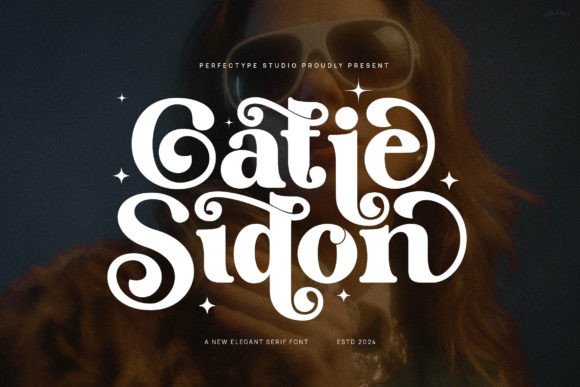
The Elegant Catie Sidon Font: A Designer’s New Best Friend
I’ll never forget the time I was working on a project for a high-end fashion brand, and I was struggling to find the perfect font to match their luxurious aesthetic. The client was specific: they wanted a font that was elegant, sophisticated, and would make their brand stand out. After hours of searching, I stumbled upon the Catie Sidon font, and it was love at first sight! 💕
With its delicate and classy look, Catie Sidon was the perfect fit for my project. Not too thin and not too thick, this elegant serif font is balanced and varied, making it perfect for enhancing the beauty of your projects. In this article, I’ll share my honest review of Catie Sidon, provide a practical guide on how to use it on different platforms, and explore similar fonts and alternatives.
• 💯 Elegant and sophisticated design: Catie Sidon is perfect for high-end projects, fashion brands, and luxury goods.
• ✅ Balanced and varied: The font’s delicate and classy look makes it suitable for a wide range of applications.
• 🌈 High-quality OpenType features: Catie Sidon supports a range of OpenType features, including glyphs and stylistic alternates.
• ⚠️ Limited use for body text: Catie Sidon’s elegant design makes it better suited for headlines and titles rather than body text.
• 🤔 Some characters may be too ornate: Certain characters, like the ampersand or dollar sign, may be too ornate for certain design applications.
Designer Inspiration: The Story Behind Catie Sidon
Catie Sidon was designed with the intention of creating a elegant and sophisticated font that would be perfect for high-end projects and fashion brands. The designer, inspired by classic serif fonts, aimed to create a font that was both delicate and classy, with a balanced and varied look.
Q: What is Catie Sidon font?
A: Catie Sidon is an elegant serif font designed for high-end projects, fashion brands, and luxury goods.
Q: Is Catie Sidon suitable for body text?
A: While Catie Sidon is a beautiful font, it’s better suited for headlines and titles rather than body text.
Q: Does Catie Sidon support OpenType features?
A: Yes, Catie Sidon supports a range of OpenType features, including glyphs and stylistic alternates.